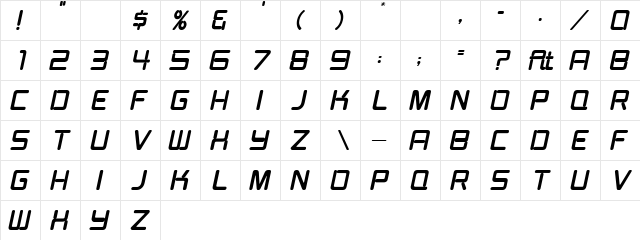
Burger Joint Neon Italic JL Regular
Design Context for Burger Joint Neon Italic JL Typeface
Burger Joint Neon Italic JL channels digital-age aesthetics through its sharp, structured letterforms — ideal for brands that want to signal innovation. Its italic angle brings a sense of urgency and motion to the letterforms.
Pro Tip: Try Burger Joint Neon Italic JL with generous letter-spacing in UI labels and navigation — the geometric forms benefit from room to breathe.